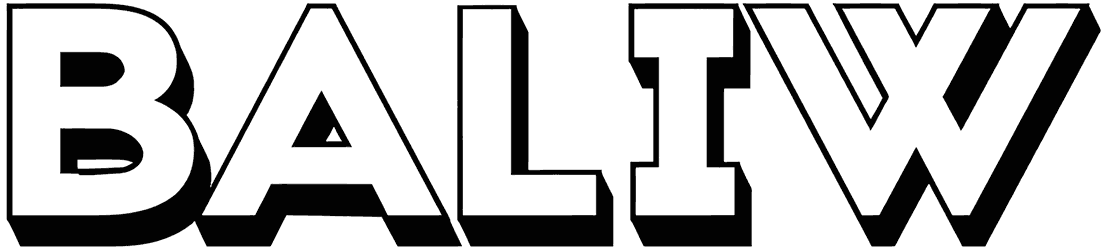
Baliw Font
For a modern design, a modest outward with a beautiful pattern is a smart choice. As an outline font, Baliw with decorated sans serif letters is able to be matched with any subject and project. This shadow font doesn’t have lowercase letters and most punctuation marks, but with bold and 3D forms, this item is a unique choice for websites, titles, posters, or the like.